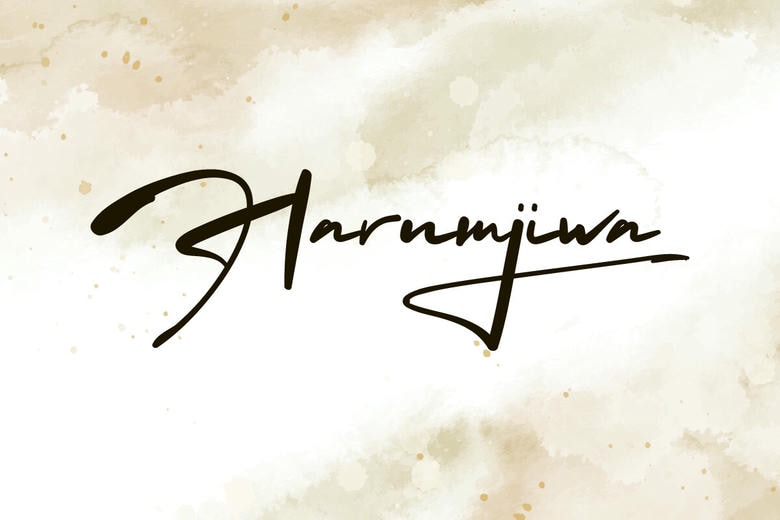
Harumjiwa Font
Harumjiwa is a beautiful handwriting Signature font with a bold black ink sketch. The font will add artistic touch and an authentic looks to any creative project including brandings, apps, billboard, book titles, cover, greeting card, logo design, poster, product packaging, quotes, stationery, sticker, title, website, wedding invitation, and much more.
Harumjiwa Handwritten Script Font